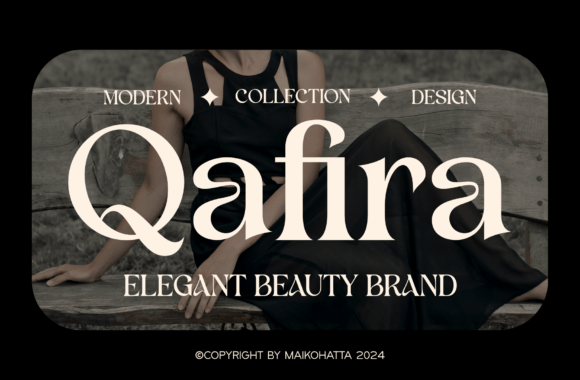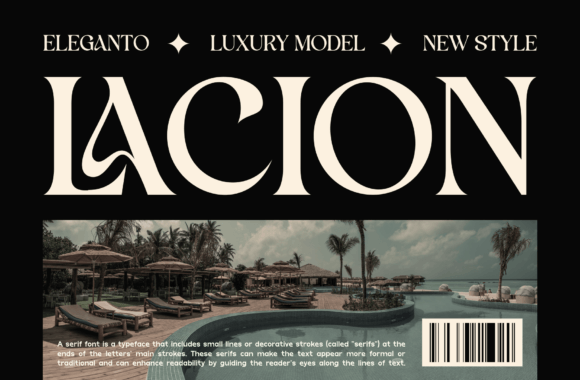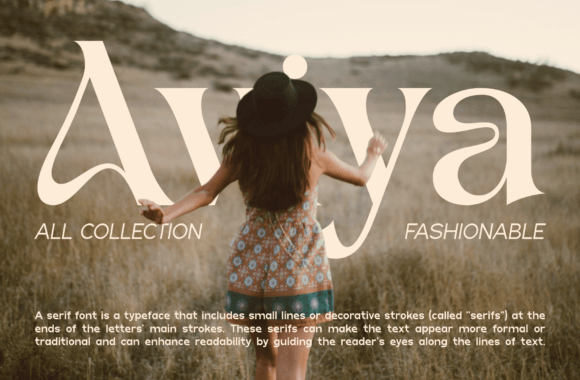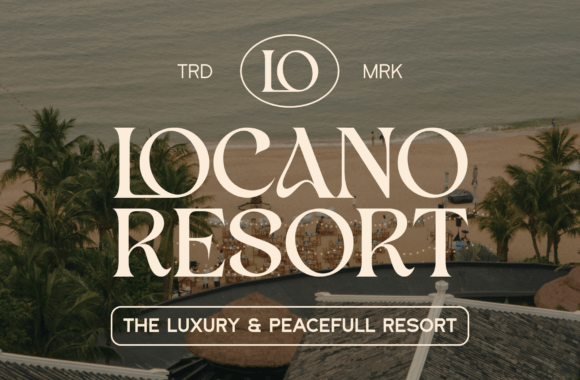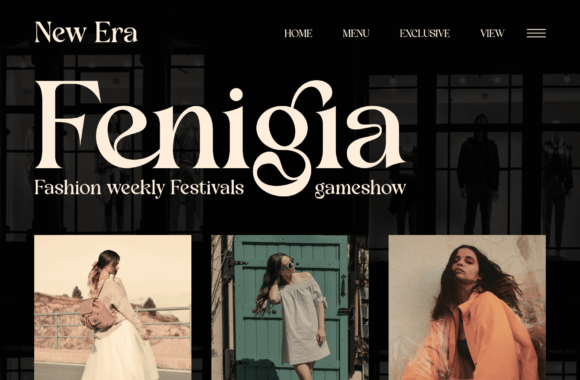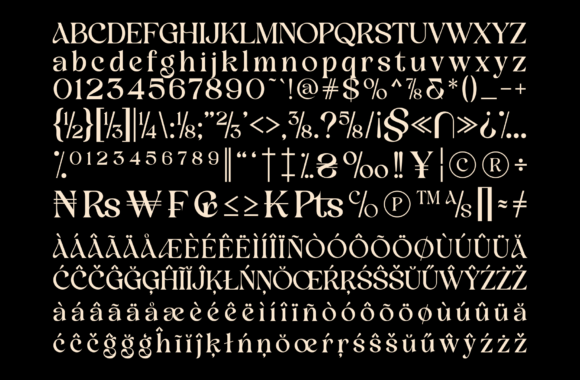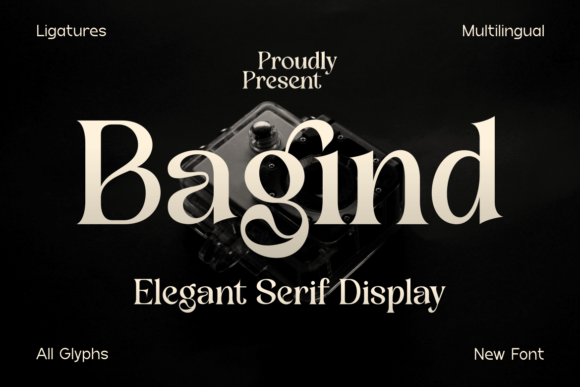
Introducing Bagind Font: Elevate Your Designs with Elegance and Sophistication
In the world of typography, fonts play a crucial role in conveying the message and aesthetic of a design. For those seeking a stylish serif display font that embodies elegance and classic design, look no further than Bagind Font. This beautifully crafted typeface combines clean, sharp lines with decorative details, making it the perfect choice for headlines, logos, posters, and any project that demands a touch of sophistication.
The Essence of Bagind Font
Bagind Font is a masterpiece of modern typography, designed to bring a sense of refinement and luxury to your designs. Its serif design adds a classic touch, while the clean lines and decorative details infuse it with a contemporary feel. This font is not just a means of communication; it’s an expression of style and creativity.
Key Features of Bagind Font
- Elegant Serif Design: The serif details in Bagind Font add a traditional touch, making it suitable for projects that require a sense of heritage and timelessness.
- Clean and Sharp Lines: The font’s clean and sharp lines ensure excellent readability, even at larger sizes, making it perfect for headlines and display purposes.
- Decorative Details: The decorative elements of Bagind Font set it apart from more straightforward serif fonts, adding a layer of sophistication and elegance.
- Versatility: Whether you’re working on a logo, poster, or any other design project, Bagind Font’s versatility ensures it will fit right in and elevate your work.
Use Cases for Bagind Font
The applications for Bagind Font are vast and varied. Here are a few ideas to get you started:
- Headlines and Titles: The font’s design makes it perfect for grabbing attention and adding a touch of class to any headline or title.
- Logos and Branding: For businesses looking to convey a sense of luxury, tradition, or sophistication, Bagind Font can be a valuable asset in creating a memorable brand identity.
- Posters and Flyers: Add a touch of elegance to your promotional materials with Bagind Font, making them stand out and leave a lasting impression.
- Packaging Design: For products that warrant a premium feel, Bagind Font can enhance packaging design, making it more appealing to potential customers.
Why Choose Bagind Font?
In a sea of fonts, Bagind stands out for several reasons:
- Unique Aesthetic: It offers a unique blend of classic and modern elements, making it a versatile choice for a wide range of design projects.
- High Readability: Despite its decorative elements, Bagind Font maintains high readability, ensuring your message is conveyed clearly and effectively.
- Easy to Pair: Its classic serif design makes it easy to pair with a variety of other fonts, allowing for endless creative possibilities.
Bagind Font is more than just a typeface; it’s a design statement. With its elegant serif design, clean lines, and decorative details, it brings a level of sophistication and elegance to any project. Whether you’re a professional designer or a crafting enthusiast, Bagind Font offers the tools to elevate your work and make it truly memorable. Explore the possibilities of Bagind Font today and discover how it can transform your designs.
Whether you’re crafting a brand identity, designing promotional materials, or simply looking for a font that adds a touch of class to your project, Bagind Font is an excellent choice. Its timeless elegance and versatility make it a valuable addition to any designer’s toolkit.